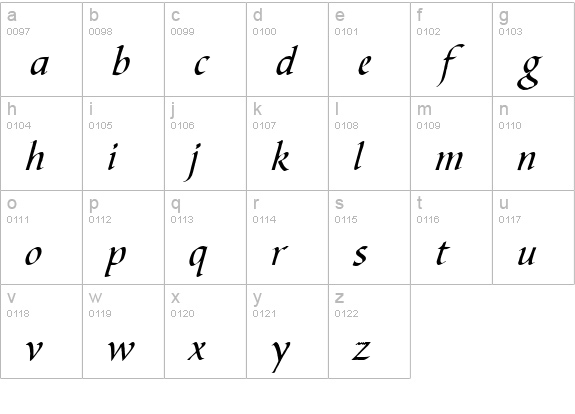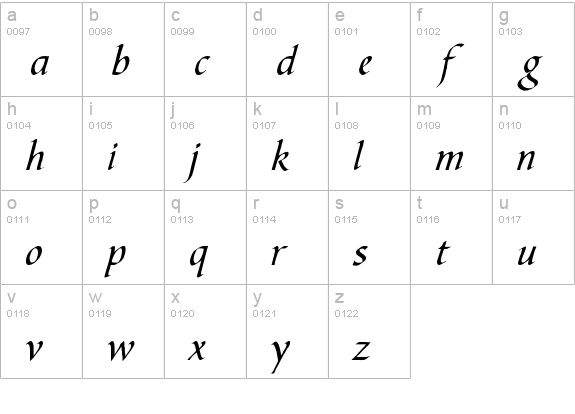
BibleScrT Font Details
BibleScrT font is a beautifully crafted typeface that exudes elegance and sophistication. Its delicate serifs and elegant curves make it perfect for adding a touch of classic charm to any design project. This timeless font is reminiscent of ancient scriptural texts, making it ideal for religious or historical-themed projects. What sets BibleScrT font apart is that it is not only visually stunning but also completely free to download. You can easily access this exquisite font at FontsMarket.com without any cost. Whether you're working on a book cover, invitation, or website design, BibleScrT font will bring a sense of tradition and refinement to your project. Download it today and elevate your designs with this exceptional typeface.